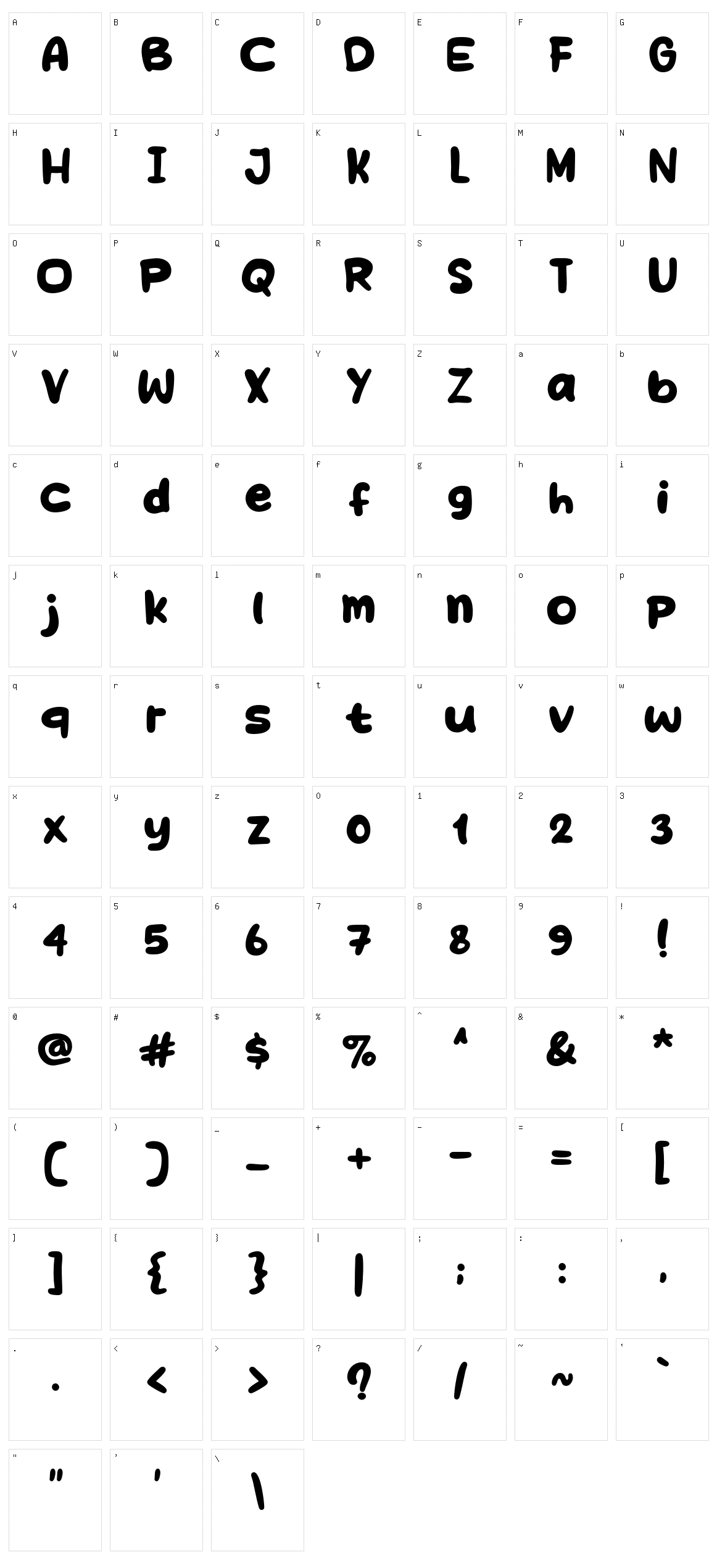
The free font Coffee Terrace is carefully designed by Khurasan, showcasing a thoughtful balance of creativity and usability and falls under the Cartoon font style. When you download the ZIP file, it contains only 379.69 KB of font files, making it lightweight and quick to download. Please review the license details below to understand permitted usage and distribution rights. If license information is not available, we recommend using this font for personal projects only or contacting the author directly for commercial usage permissions.